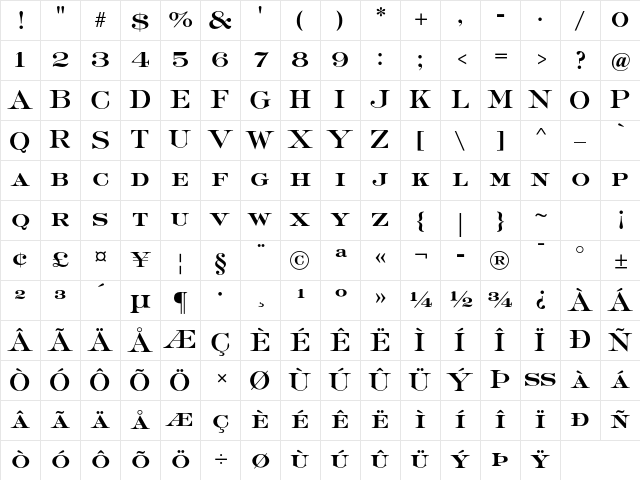
Sackers Roman Std Heavy
Complete Sackers Roman Std Heavy glyph index. Displaying only characters natively supported by Sackers Roman Std Heavy font.
Design Context for Sackers Roman Std
Sackers Roman Std is a composed and adaptable typeface that performs quietly and consistently across a wide range of design contexts.